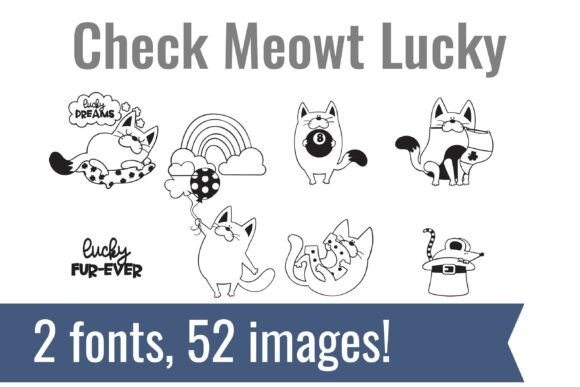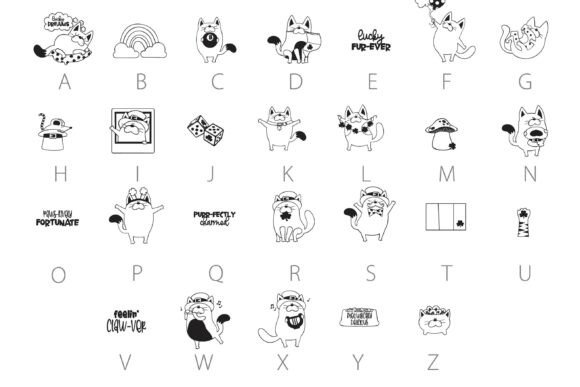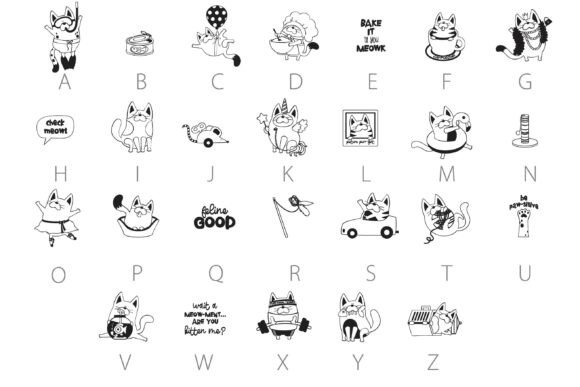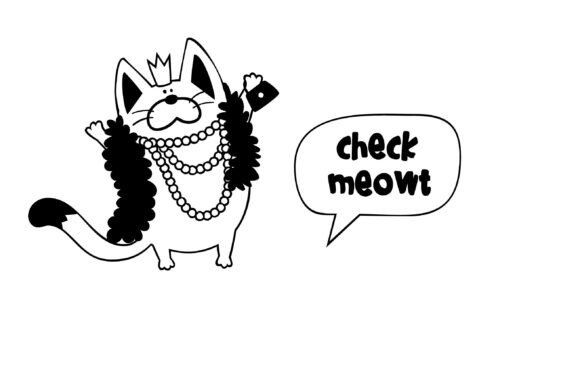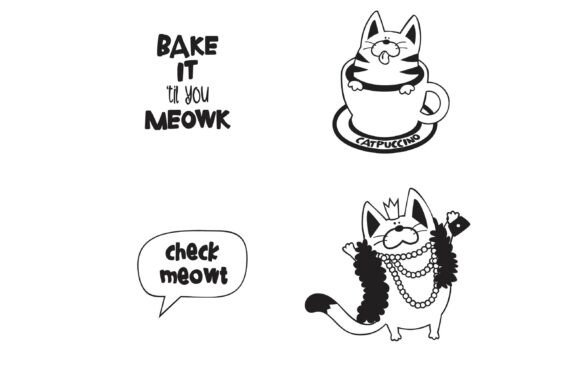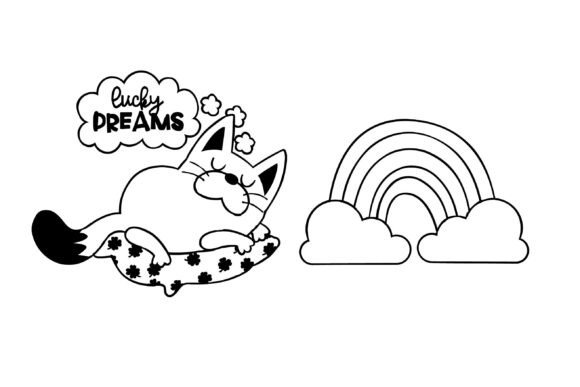
Unlock Endless Creativity with Check Meowt Dingbats Font
Are you tired of spending hours searching for the perfect icons and graphics for your designs? Look no further! The Check Meowt Dingbats Font bundle is here to revolutionize your creative process with two perfectly coordinated dingbat fonts featuring the cutest cat images and cat-related lucky images.
What are Dingbat Fonts?
Dingbat fonts are a type of font that features graphical symbols, icons, and images instead of traditional letters. They are perfect for designers, crafters, and makers who want to add a personal touch to their projects. With dingbat fonts, you can create stunning designs for various applications, including vinyl cutting, paper crafts, planners, and more.
Features of Check Meowt Dingbats Font
The Check Meowt Dingbats Font bundle includes two dingbat fonts that are perfectly coordinated to help you create cohesive and visually appealing designs. Here are some of the key features of these fonts:
- Two Coordinated Fonts: The bundle includes two dingbat fonts that work seamlessly together, allowing you to create stunning designs with a consistent look and feel.
- Cute Cat Images: The fonts feature a wide range of cute cat images and cat-related lucky images that are perfect for cat lovers and designers who want to add a touch of whimsy to their designs.
- Scalable Designs: The dingbat fonts in this bundle are scalable, which means you can use them for various projects, from small icons to large graphics, without compromising on quality.
Use Cases for Check Meowt Dingbats Font
The Check Meowt Dingbats Font bundle is perfect for various applications, including:
- Holiday Cards: Create charming seasonal icons for holiday cards, invitations, and gift tags.
- Vinyl Cutting: Use the fonts to create stunning designs for vinyl cutting, including decals, signs, and iron-on transfers.
- Paper Crafts: Add a personal touch to your paper crafts, including cards, scrapbook pages, and journal entries.
- Planners and Organizers: Create custom planners, journals, and organizers with adorable cat-themed icons and graphics.
- Invitations and Stationery: Use the fonts to create intricate frames, borders, and designs for your invitations, stationery, and letterheads.
Benefits of Using Check Meowt Dingbats Font
By using the Check Meowt Dingbats Font bundle, you can:
- Save Time: No more spending hours searching for the perfect icons and graphics. With dingbat fonts, you can create stunning designs in minutes.
- Unlock Endless Creativity: With dozens of cohesive, scalable designs at your fingertips, you can create unique and visually appealing projects that showcase your creativity.
- Enhance Your Designs: Add a personal touch to your designs with adorable cat-themed icons and graphics that are sure to delight your audience.
The Check Meowt Dingbats Font bundle is a must-have for designers, crafters, and makers who want to unlock endless creativity and take their designs to the next level. With two perfectly coordinated dingbat fonts featuring cute cat images and cat-related lucky images, you can create stunning designs for various applications. Say goodbye to tedious searching and hello to a world of creative possibilities with the Check Meowt Dingbats Font bundle.